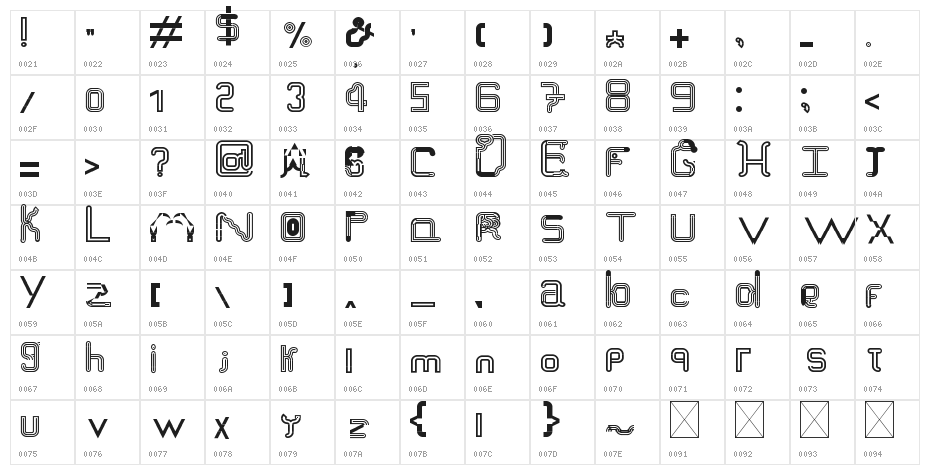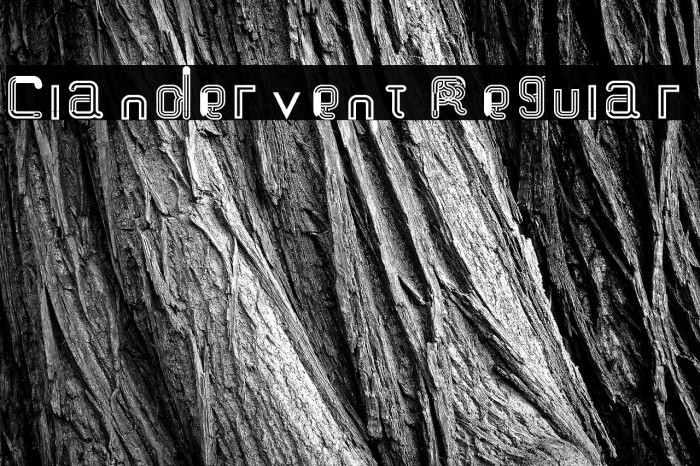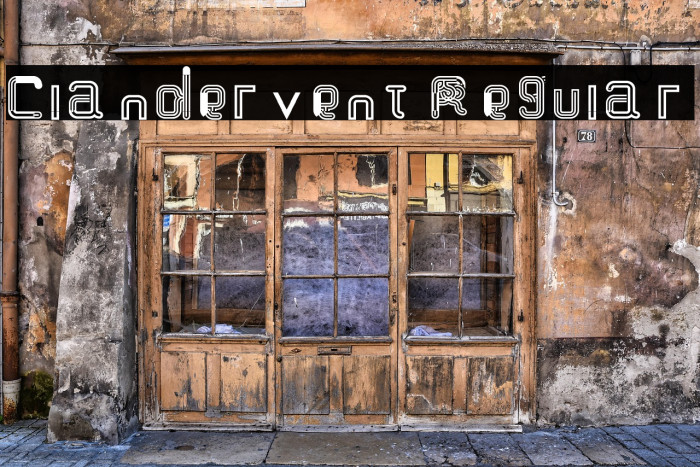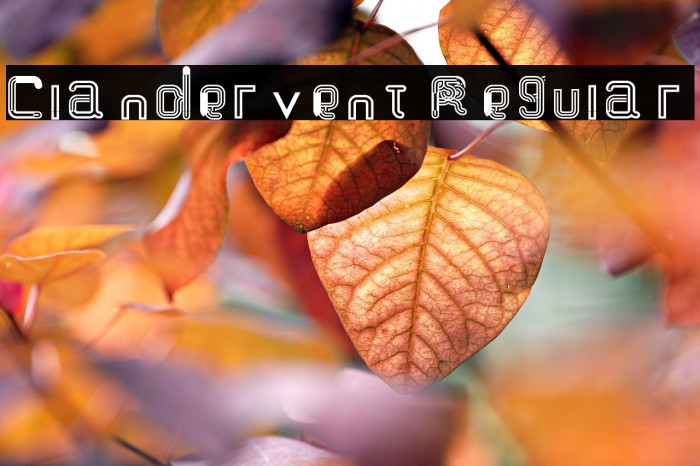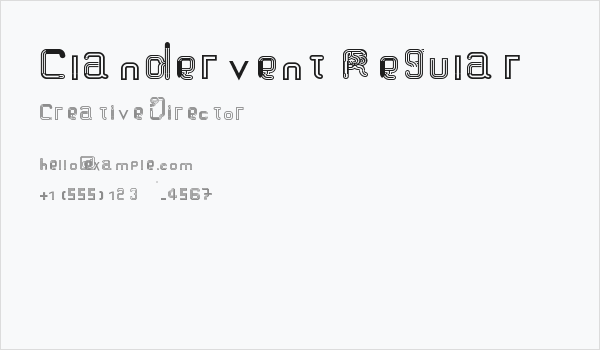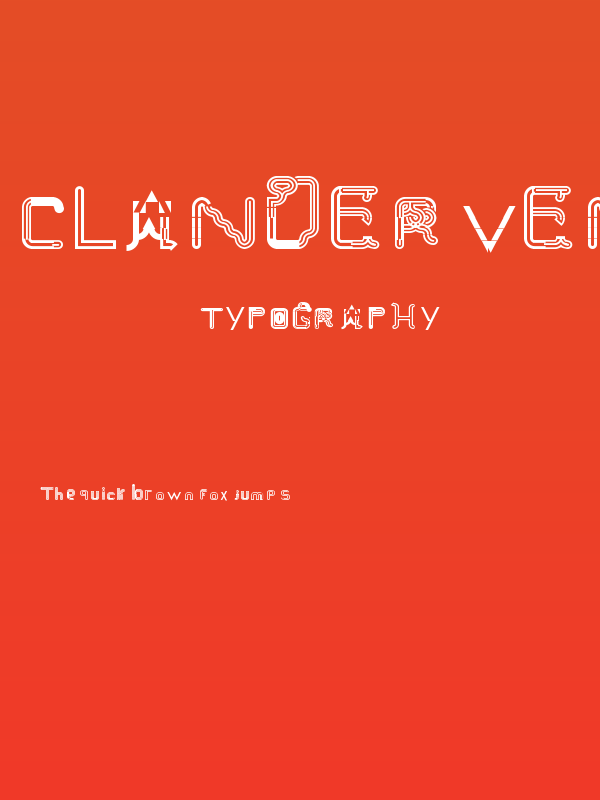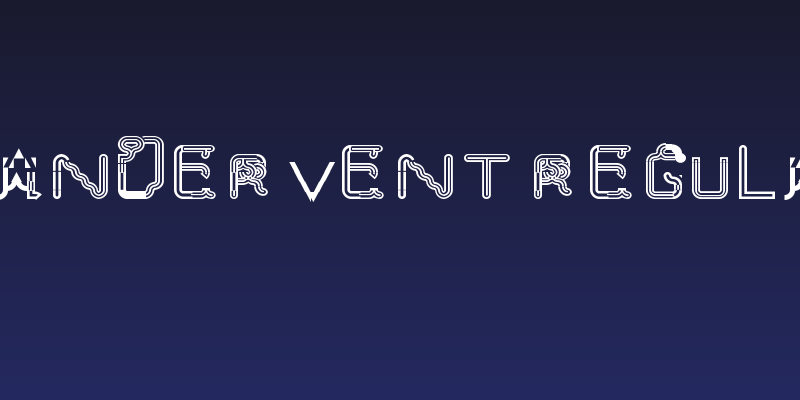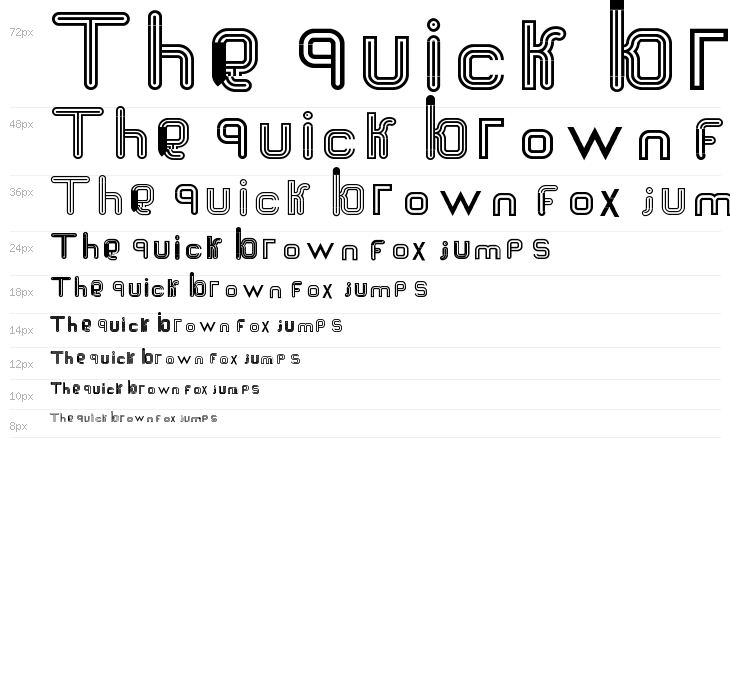
Clandervent Regular Font
Designed for versatility and originality, Clandervent reflects a personalized typographic style and is intended for use in digital and print design projects.
| Progetti proposti | Ideal for branding, digital media, advertising, and editorial design. |